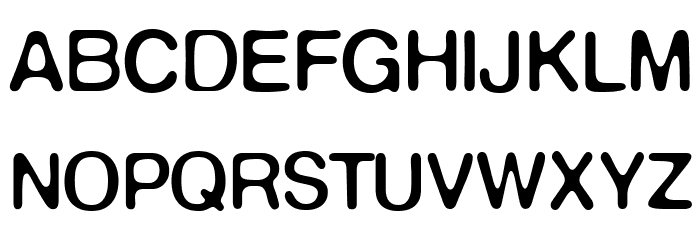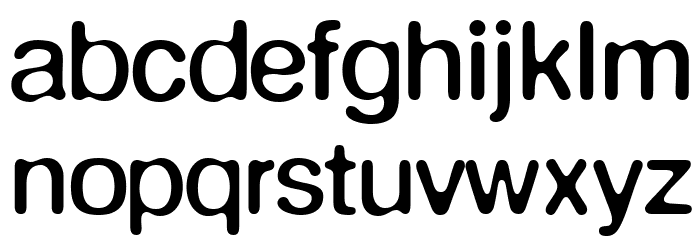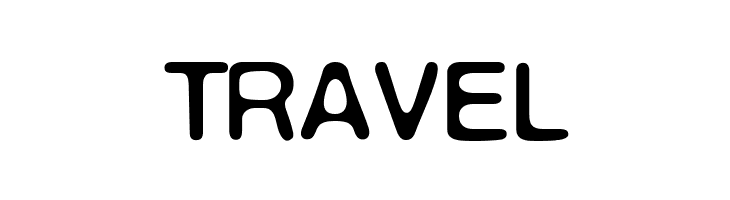
DeFonte Reduced Normale Font
DeFonte Reduced Normale Description
This font features a rounded, friendly appearance with smooth curves and a consistent stroke width, giving it a modern and approachable feel. The characters are evenly spaced, providing a clean and organized look. The uppercase and lowercase letters maintain a uniform style, enhancing readability. The font's design is versatile, making it suitable for various applications, from digital interfaces to print media. Its simplicity and clarity make it an excellent choice for projects that require a contemporary and professional touch.
A rounded, modern font with smooth curves and consistent stroke width from Uncategorized fonts.
- Proposed Projects: Ideal for digital interfaces, branding, advertising, and print media.